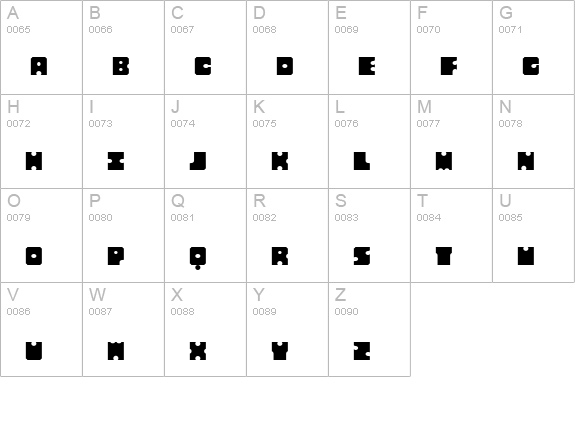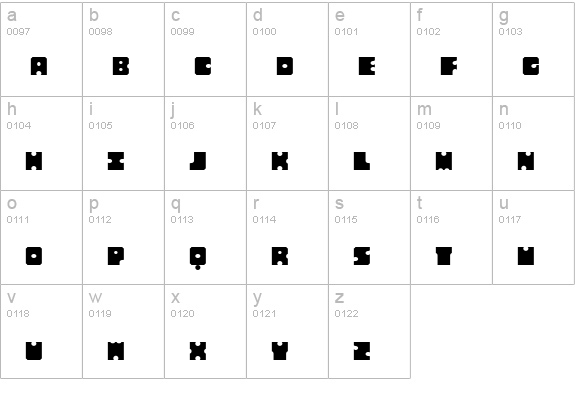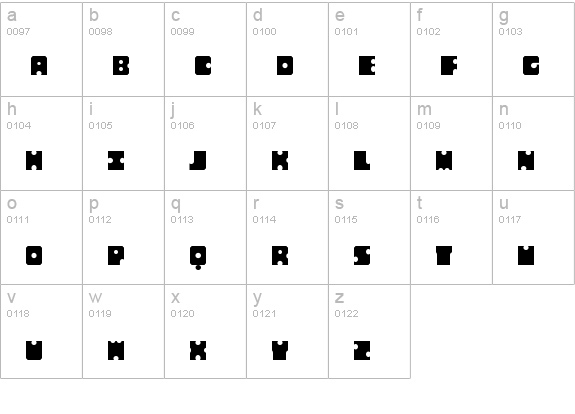
Sergury Font Details
Sergury font is a sleek and modern typeface that exudes elegance and sophistication. With its clean lines and sharp edges, this font is perfect for any project that requires a touch of class. The versatility of Sergury font allows it to be used in a variety of design applications, from branding and logos to invitations and signage. One of the best things about Sergury font is that it is completely free! That's right, you can download this stunning font for absolutely no cost at FontsMarket.com. Whether you're a professional designer or a hobbyist looking to add a stylish touch to your personal projects, Sergury font is the perfect choice. Not only is Sergury font visually pleasing, but it is also highly legible. Its carefully crafted letterforms ensure that every word is crisp and easy to read, making it a great option for both print and digital media. The generous spacing and balanced proportions of this font allow for a comfortable reading experience, ensuring that your message gets across clearly and effectively. Sergury font offers a wide range of weights and styles, allowing you to customize your designs to suit your specific needs. Whether you're going for a bold and impactful look or a more subtle and refined aesthetic, Sergury font has got you covered. Its versatility and adaptability make it a valuable asset in any designer's toolkit. So why wait? Don't miss out on the opportunity to enhance your designs with the beauty of Sergury font. Download it for free today at FontsMarket.com and unlock a world of creative possibilities. With its sleek design, legibility, and extensive customization options, Sergury font is sure to make a lasting impression on your audience. Take your projects to the next level with this exceptional font and let your creativity shine.